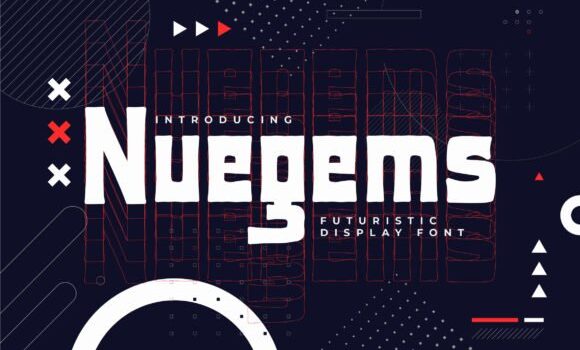
Nuegems Font – Free Download Introduction to Nuegems Font Nuegems is a cool, bold and thick lettered display font. 📸 Preview Gallery 6 images 📌 Product Name Nuegems Font 👤 Author Vunira 📂 Category Explore ⬇️ Download Nuegems Font FREE